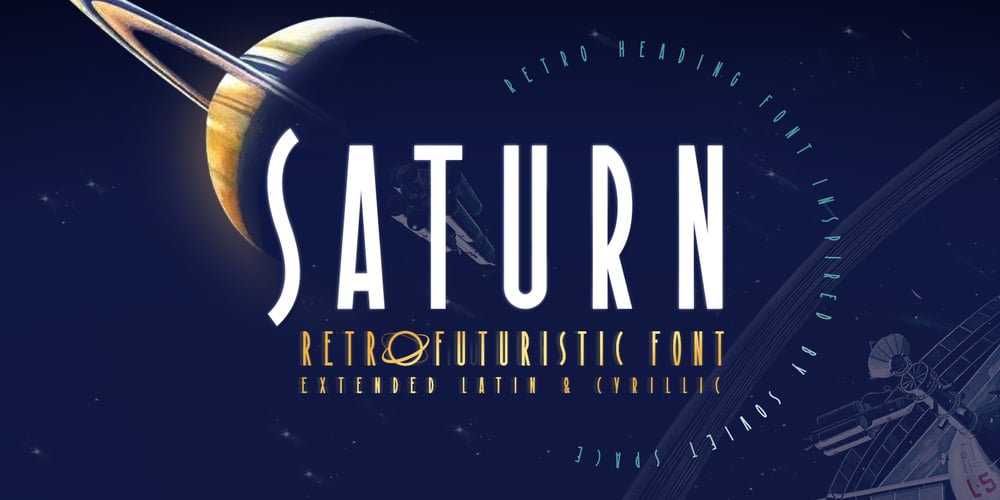
ST Saturn
ST Saturn font
ST Saturn Font Family was designed by Alexander Shimanov and published by ShimanovTypes. ST Saturn contains 1 styles and family package options. SATURN is a retro futuristic modern editorial font with vintage vibes, inspirated by Soviet sci-fi book’s headers and posters. It has a spirit of Space race, brave hearts and cosmic dreams. It’s good for social media, headlines, large-format print, branding, posters, fashion designs and websites.Language Support:Latin: English, French, German, Dutch, Italian, Spanish, Danish, Norwegian, Portuguese, Croatian, Swedish, Hungarian, Estonian.Cyrillic: Russian, Belorussian, Ukrainian, Serbian, Kazakh, Bulgarian.